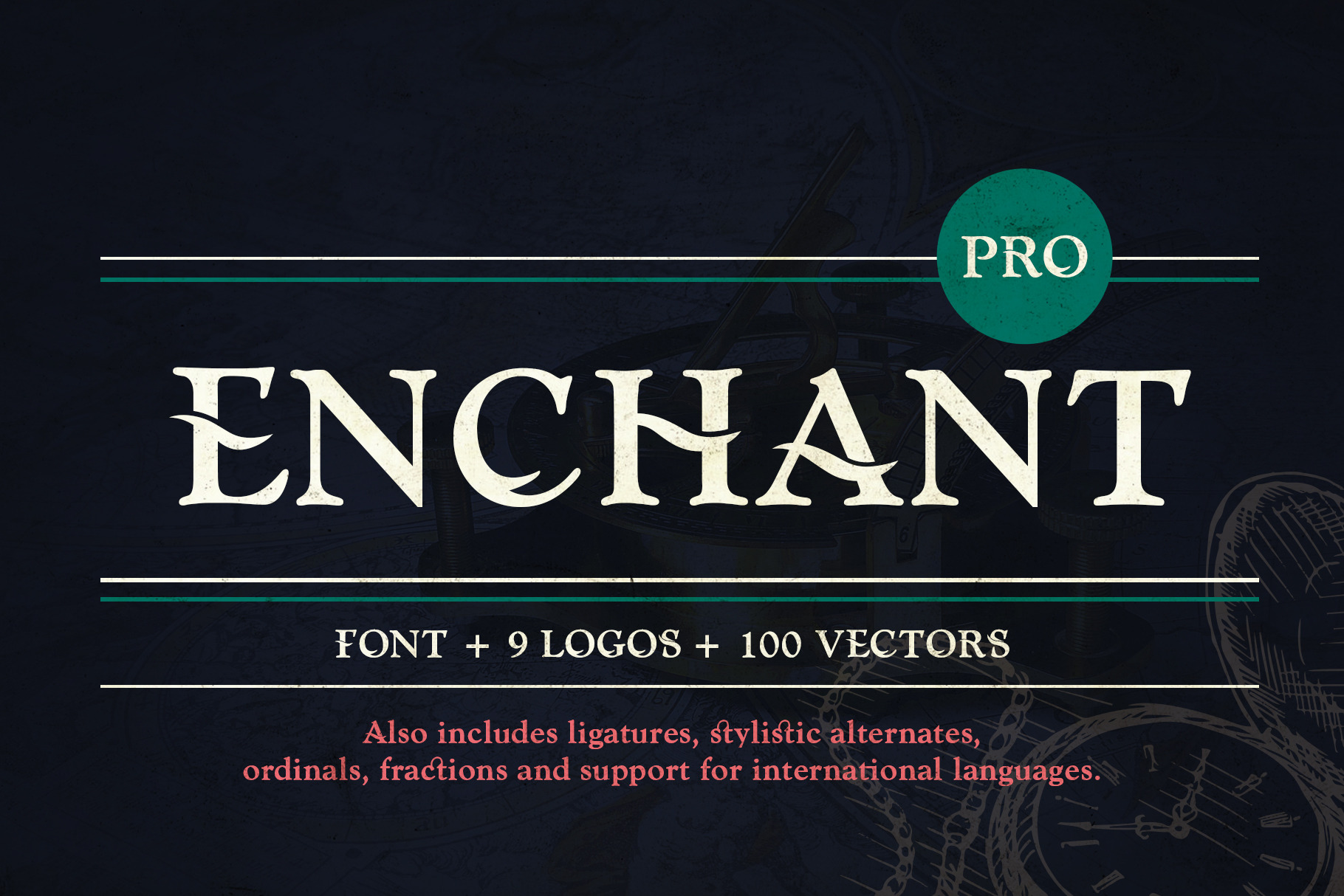
Enchant Font & Extras
Enchant A font that is both beautiful and versatile. Enchant has it all: standard characters, ligatures, stylistic alternates, ordinals, fractions, and multiple language support (scroll through the pictures to see what I mean). This will make Enchant one of the most used fonts in your design arsenal. I hope you enjoy it.
This collection features 387 glyphs including ligatures, alternates and ordinals. To access the OpenType features, you will need compatible software such as Photoshop, Illustrator, InDesign etc.
International designers, you have not been forgotten; the collection includes support for over 50+ languages including: Afrikaans, Albanian, Catalan, Croatian, Czech, Danish, Dutch, English, Estonian, Finnish, French German, Hungarian, Icelandic, Italian, Lithuanian, Maltese, Norwegian, Polish, Portuguese, Slovak, Slovenian, Spanish, Swedish, Turkish, Zulu and much more.